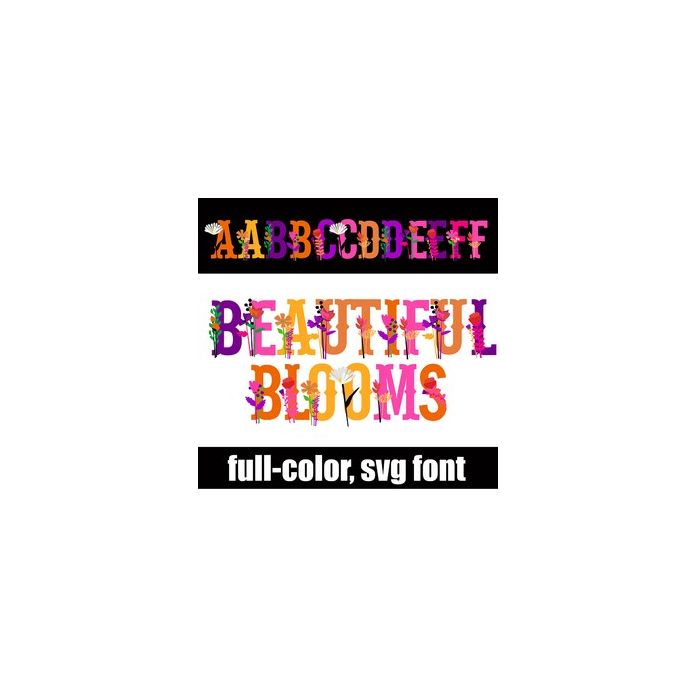
This full-color font features pretty flowers in a warm color palette. There is an alt case w/ additional colors you can access through your system or Silhouette's glyph map.